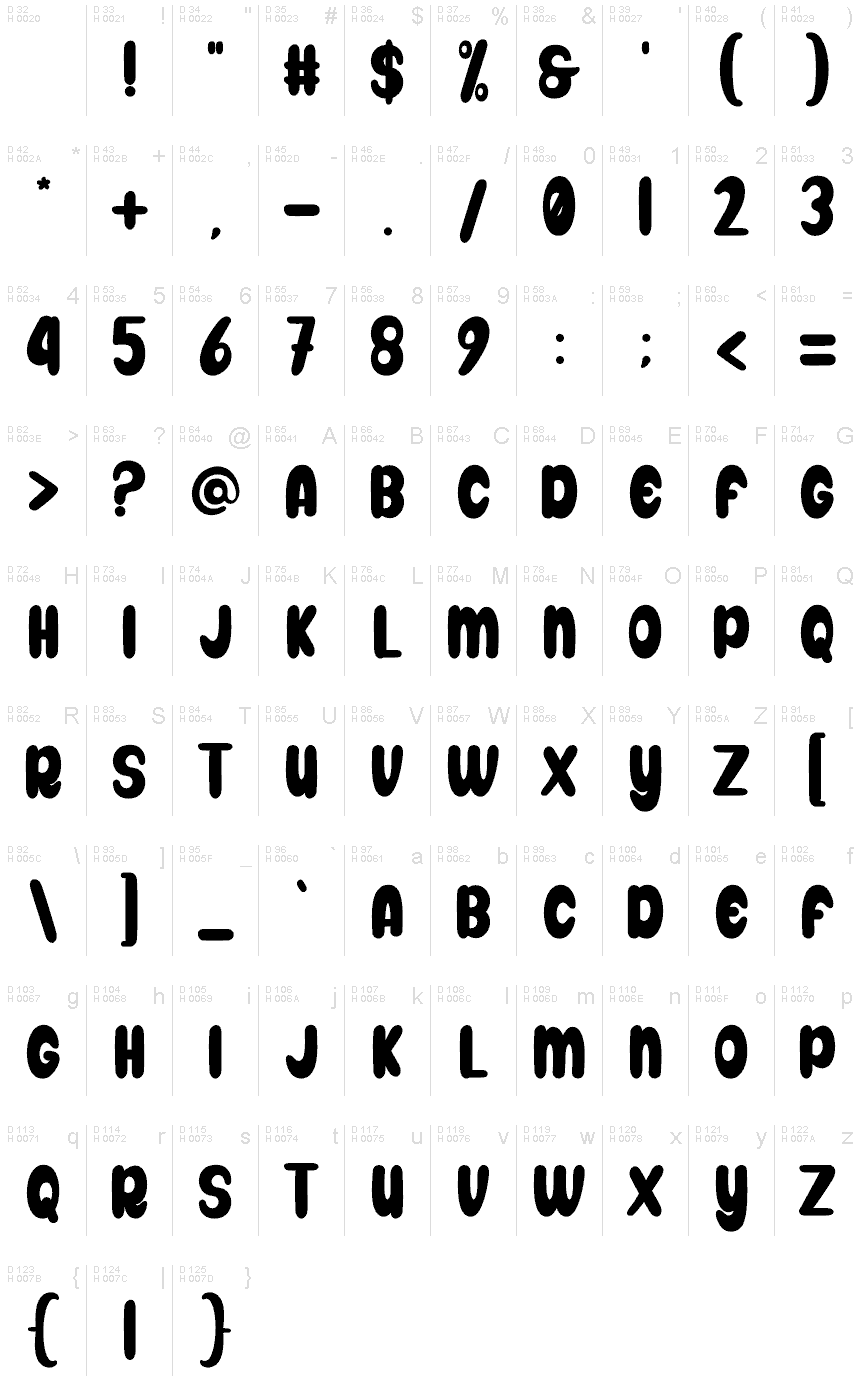
Deurne
Deurne font, crafted by Skiiller Studio, is a cartoon-style display font with a bold and condensed approach. The retro-inspired typeface reveals an aesthetic mindful of the 1970s through its rounded shapes and geometric forms. It carries a whimsical and somehow vintage feel, making its presence more noticeable often than not as it appears in design projects.
Use it freely on website headers, children’s books titles, poster designs that seek familiarity from the viewer, physical product packaging such as t-shirts or snack boxes, magazine/publishing use cases like covers or short articles usually found in lifestyle color mags. Deurne also does well on book covers and cards (playing cards).